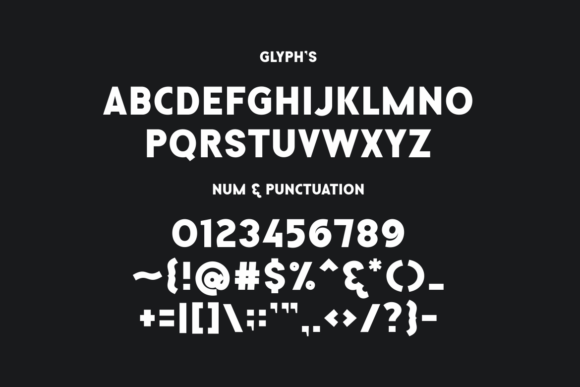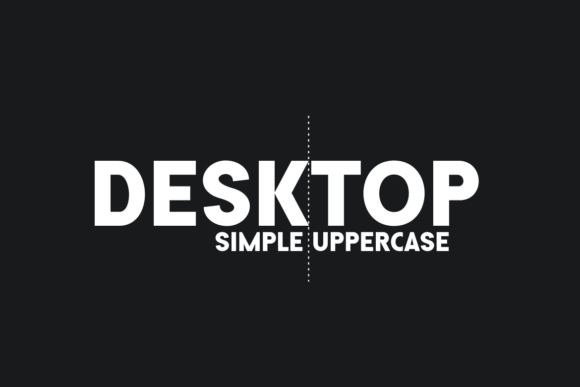
Discover the Power of Pediset Font
As a designer, have you ever stumbled upon that one font that makes your creative project truly stand out? For many, that font is the elusive ‘wow factor’ that elevates their work from good to great. For those in the know, that font is often Pediset Font – a game-changing addition to any design arsenal.
What sets Pediset apart is its unique ability to balance style and function. With its bold character, it effortlessly commands attention, making it the perfect choice for everything from dynamic logos to impactful page titles. Whether you’re working on a high-quality design resource or simply looking to add a memorable touch to your next project, Pediset Font is an invaluable asset.
Key Features of Pediset Font
- High-quality, professional font suitable for various creative projects, including graphic design and digital art.
- Features a clean, modern design with a clear and legible font size, suitable for body text or headings in various creative projects.
Honest Review: Pediset Font
I recently had the chance to work with Pediset Font for a creative project and I must say, I was quite impressed. This design resource is perfect for anyone looking for a high-quality font to elevate their design work.
- High-quality design: Pediset Font is beautifully crafted with a modern and elegant feel that’s perfect for a wide range of creative projects.
- Limited style options: While the design of Pediset Font is beautiful, it’s worth noting that it only comes in a few different styles, which may limit its versatility.
- No support for custom glyphs: If you need to create custom glyphs for your design project, you may find Pediset Font to be a bit restrictive.
Overall, I’m really impressed with Pediset Font and would definitely recommend it to anyone looking for a high-quality design resource for their next creative project.
How to Use Pediset Font
The Pediset Font is a high-quality design resource perfect for creative projects that require a unique and stylish touch. With its transparent background and versatile style, this font is ideal for a variety of applications.
To get the most out of the Pediset Font, try combining it with other design elements to create a unique and eye-catching visual style.
The Pediset Font is perfect for:
- Creating eye-catching headings and titles
- Designing stylish invitations and event materials
- Developing a consistent brand identity